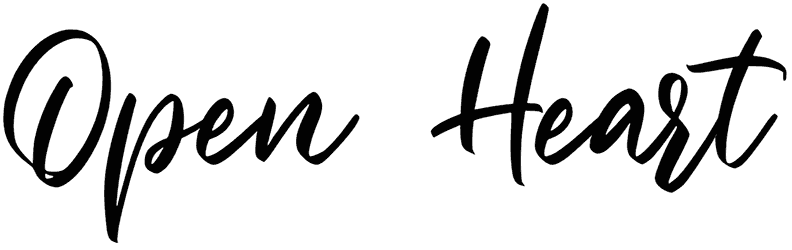
Open Heart Font
The charming and magnificent beauty of the handwritten font Open Heart makes it impossible to resist. Logos, posters, invitations, and any other project requiring hand-drawn effects are just some of the places you may put them to use.
Despite the small size of the lowercase and numerical characters, this script font will let you get closer to the heart of your next design. Get this stunning font from our extensive selection and prepare to be the center of attention.